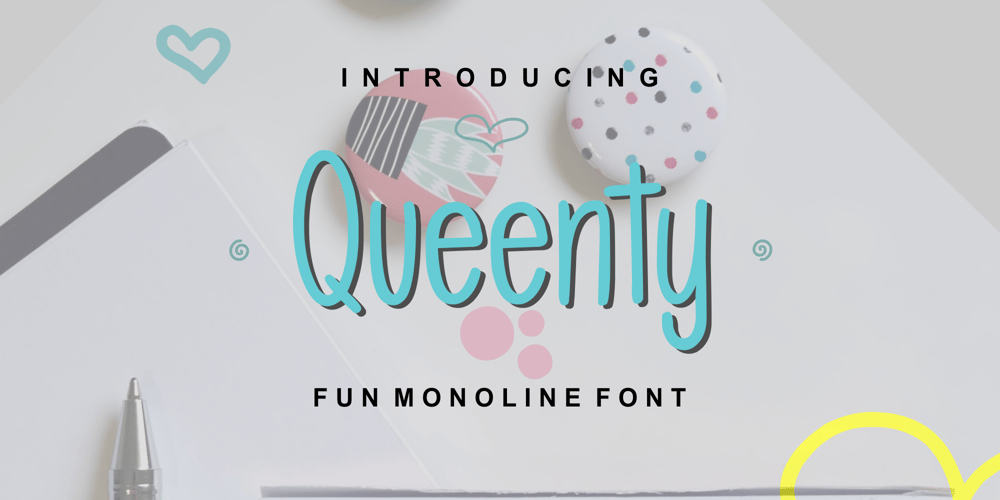
Queenty Font Family was designed by Zamjump and published by Zamjump. Queenty contains 1 styles and family package options. Queenty is a fun monoline font that can be applied to many of your precious designs. It’s really handwriting that’s kept simple and has an elegant style that makes this font a lot of fun.Queenty has a unique additional swash to complement this font, and it’s very easy to pop it just by pressing a+underscore.. You can use it for posters, titles, greeting cards, packaging, invitations and more.Included :- Multi-language- Unique Swash